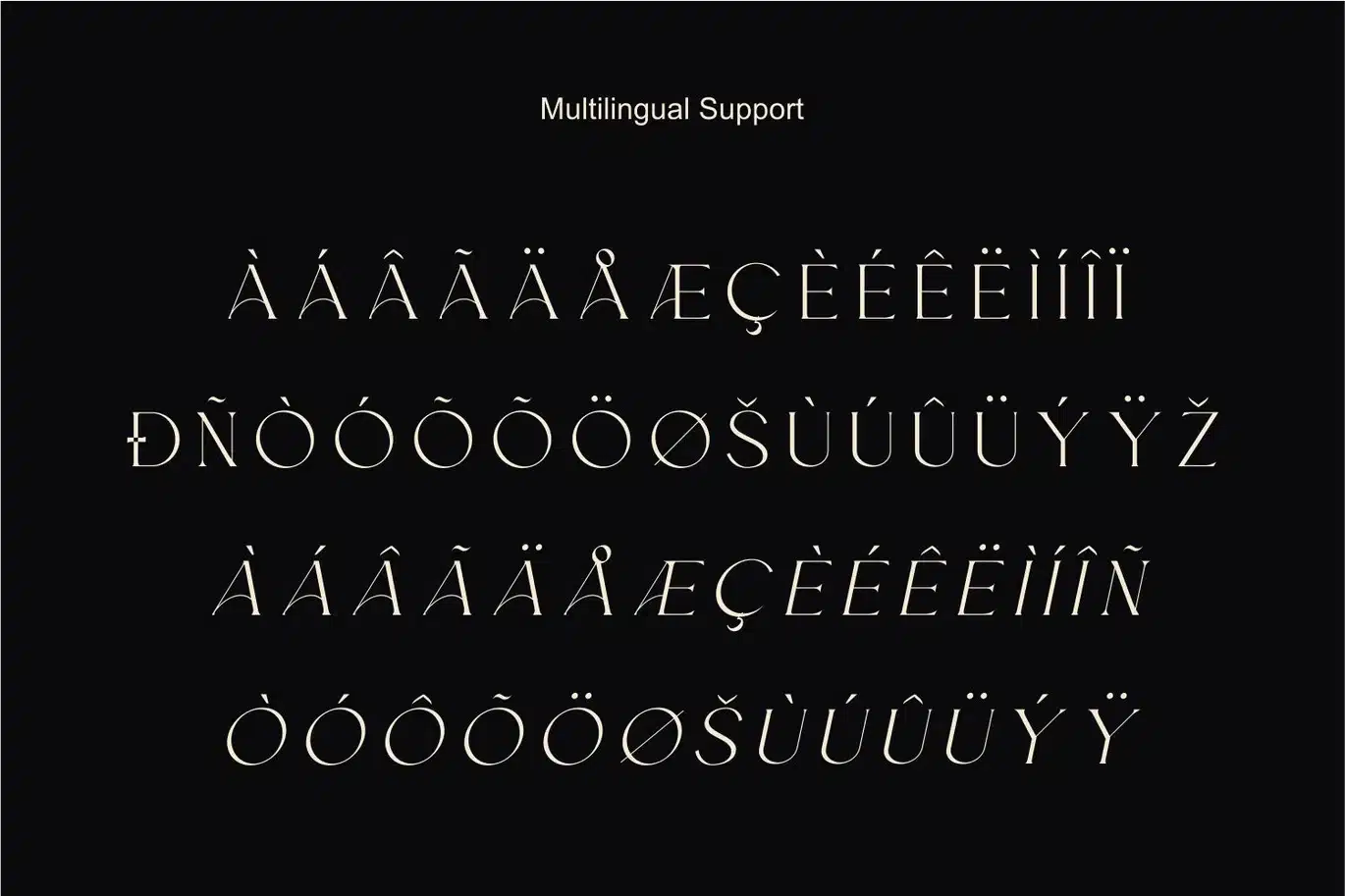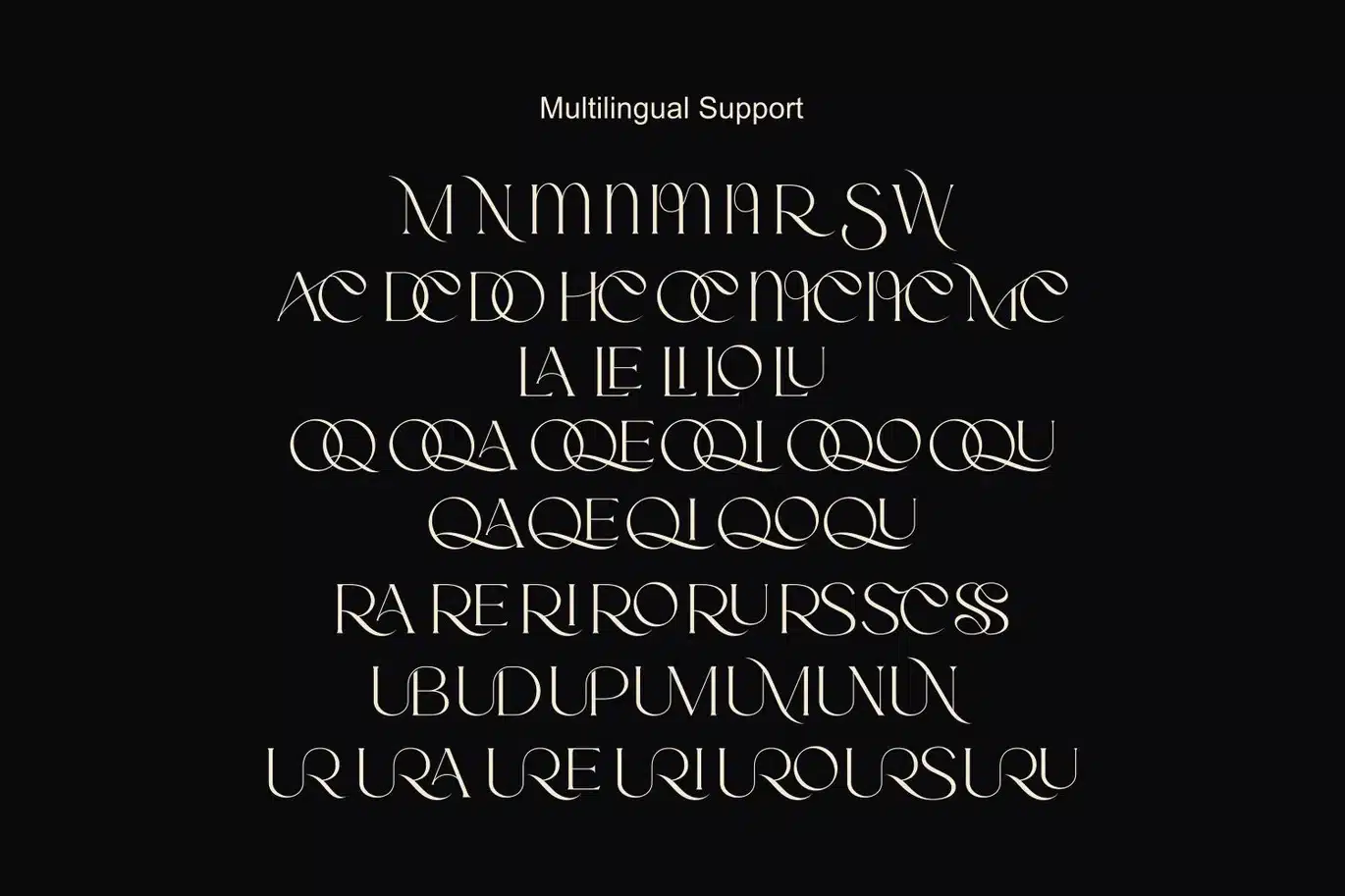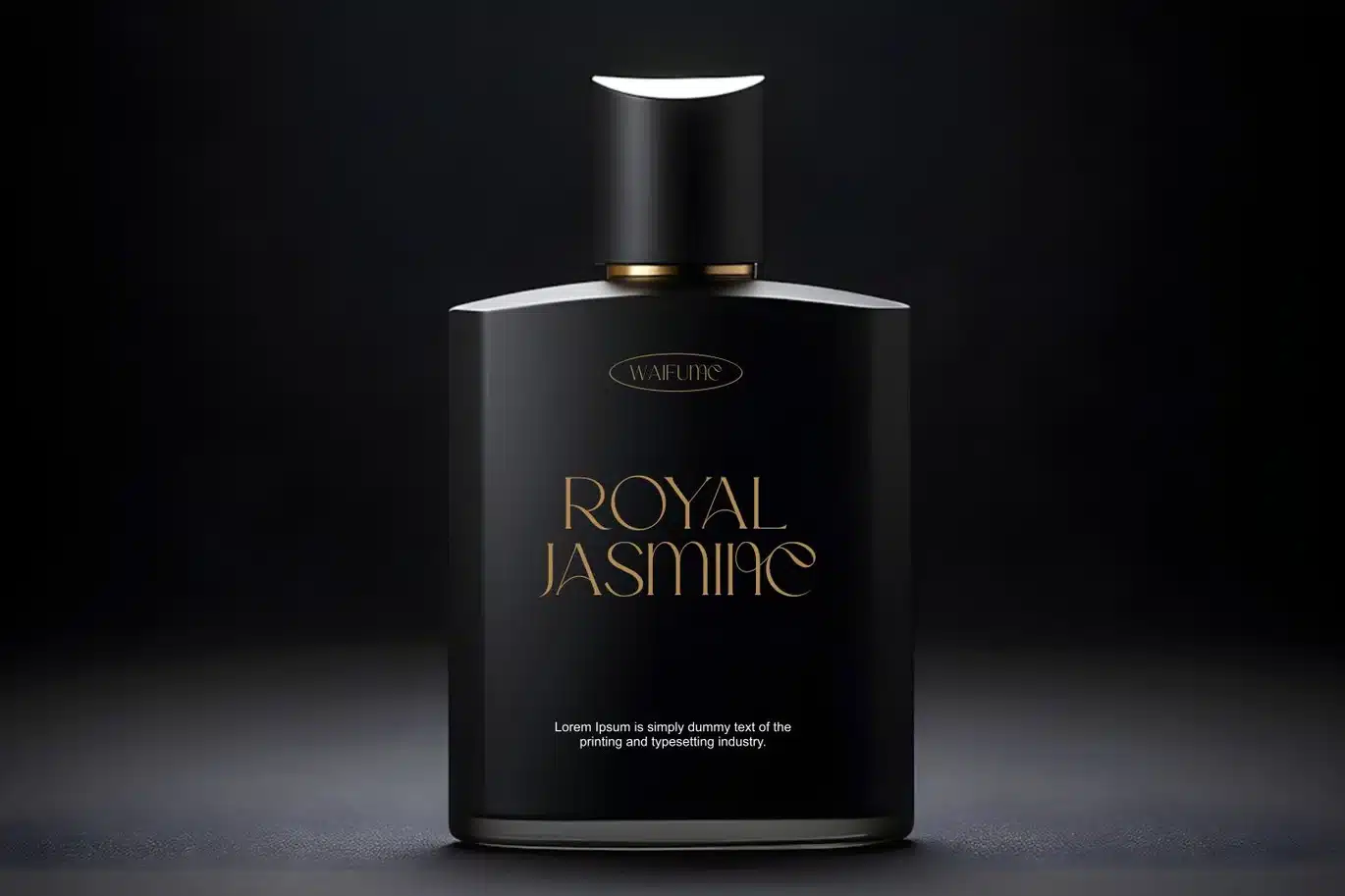
Burline – Elegant Serif Fonts
Burline is an elegant and luxurious serif font designed to elevate your branding with a refined and sophisticated touch. Featuring high-contrast strokes, sleek curves, and stylish letterforms, Burline delivers a perfect balance between modern elegance and timeless beauty.
This font is ideal for designers who want to create premium visuals with a strong aesthetic presence. Its unique character shapes and subtle artistic details make it stand out in logos, editorials, and high-end branding projects.
Burline works beautifully across both digital and print applications, giving your designs a classy and professional look.
Perfect for:
Luxury branding & logo design
Fashion and beauty editorials
Perfume & cosmetic packaging
Wedding invitations & stationery
Social media and advertising design
High-end website typography
Uppercase & lowercase characters
Numerals & punctuation
Ligatures & stylistic alternates
Multilingual support
Clean, modern, and elegant style
Bring a sense of luxury and elegance into your work with Burline — a serif font crafted for premium design experiences.